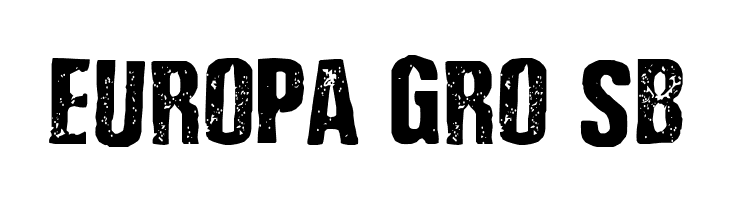
A bold, distressed font with a rugged, vintage appearance.
A bold, distressed font with a grunge aesthetic, perfect for edgy designs.
A distressed, grungy font with bold, textured characters.
A distressed, grunge-style font with bold, rugged characters.